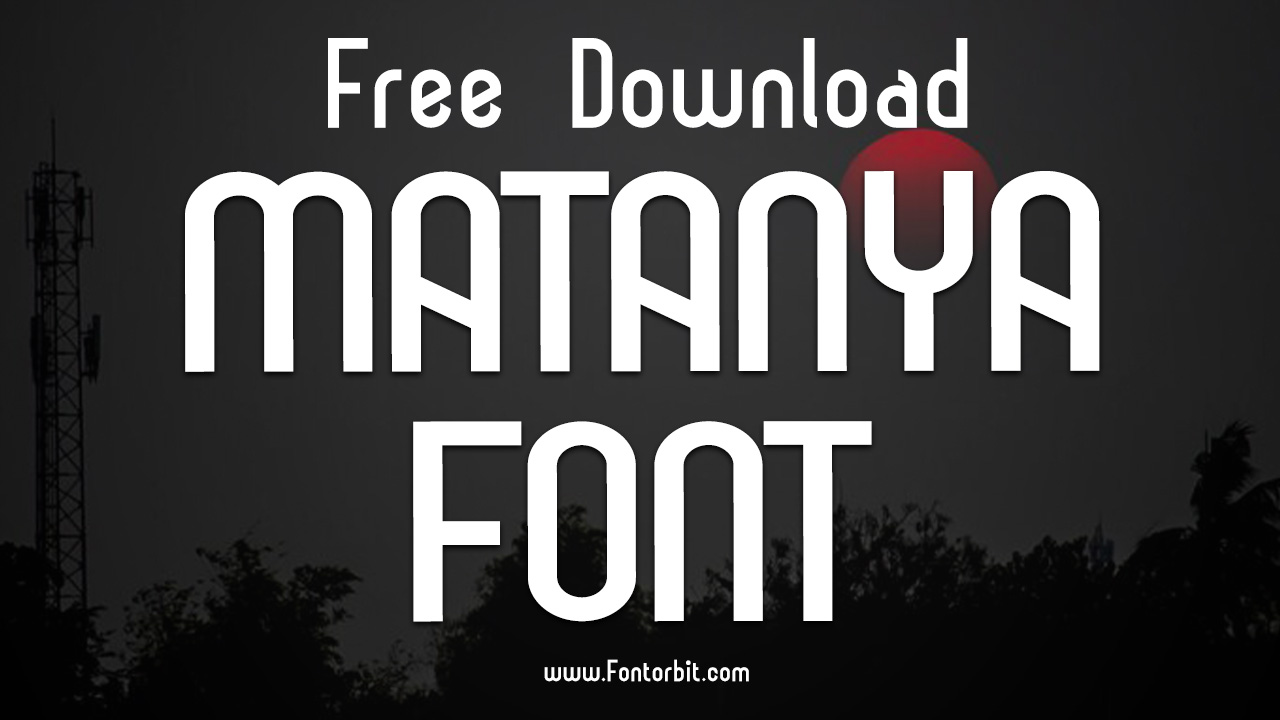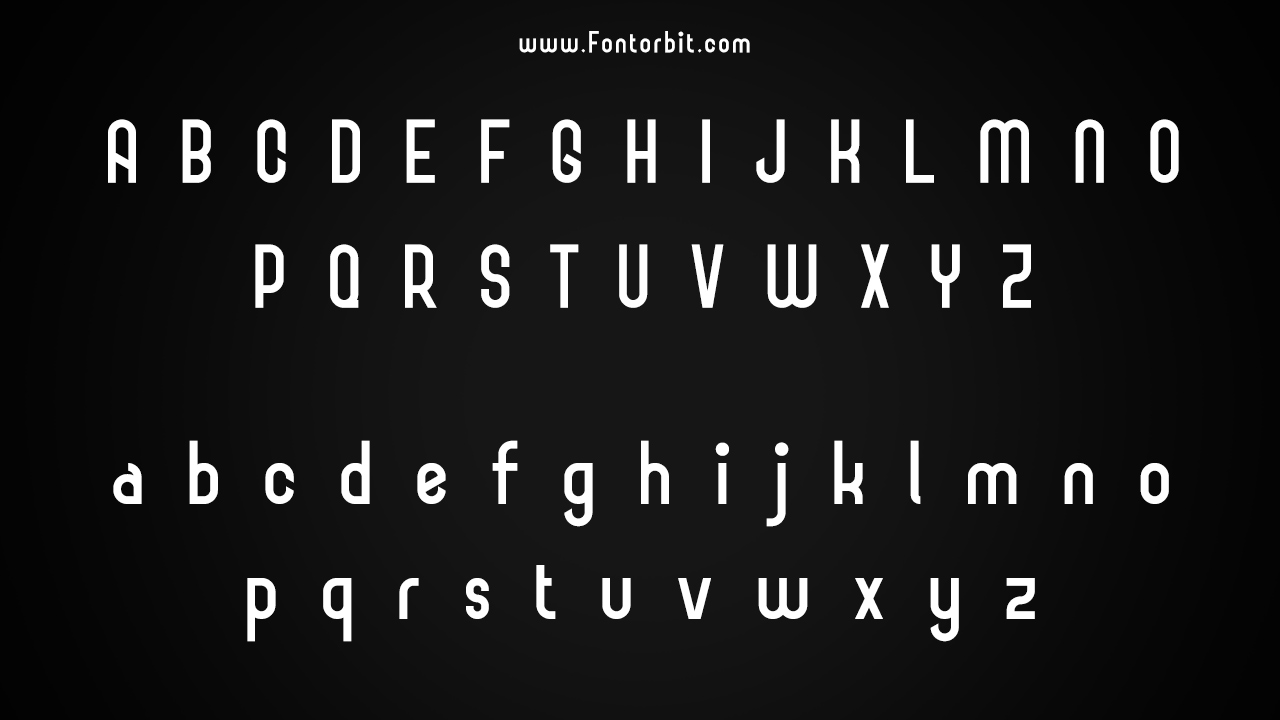
The Matanya Font, designed by Iwan Alwan and published by Artiveko, stands out with its modern and sleek aesthetic. This unique condensed sans serif typeface features distinctive shapes for both uppercase and lowercase letters, offering a contemporary and stylish look. Its versatility makes it ideal for a wide range of design projects, from logos to branding materials.
The Matanya Font Family
1.Matanya Regular
2.Matanya Italic
- Wedding Invitations
- Clothing Brands
- Vintage Designs
- Creative Advertising
- Branding Projects
- Product Packaging
The Matanya Font is perfect for designs that require a sophisticated and contemporary look. Its versatile design lends itself well to branding, marketing materials, and any project that aims to make a strong visual impact.
1.What Is The Matanya Font?
The Matanya Font is a modern, condensed sans serif typeface designed to offer a sleek and stylish appearance with its unique letter shapes and clean lines.
2.Who Designed The Matanya Font?
Iwan Alwan designed the Matanya Font, bringing a contemporary and versatile typeface to creative projects.
3.What Are The Key Features Of The Matanya Font?
The font features distinctive condensed letterforms, multilingual support, ligatures, and alternates, making it ideal for a wide range of design applications.
4.How To Use Matanya Font In Branding?
Use it for logos, branding materials, and any project that needs a modern and professional look. Its clean design enhances the visual appeal of various creative projects.
5.What Are The Alternatives To The Matanya Font?
Similar fonts include Raleway, Bebas Neue, Montserrat, and Oswald, which offer modern and clean aesthetics akin to the Matanya style.